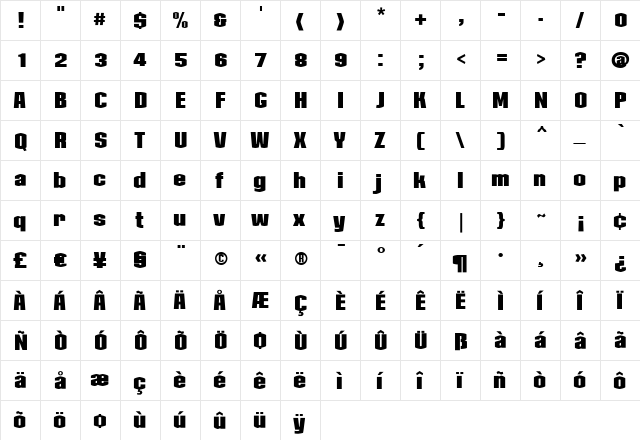
Collos Bold Font Preview
Collos Bold
Design Context for Collos Typeface
Collos is a composed and adaptable typeface that performs quietly and consistently across a wide range of design contexts. Its bold stroke weight gives it real presence on the page.